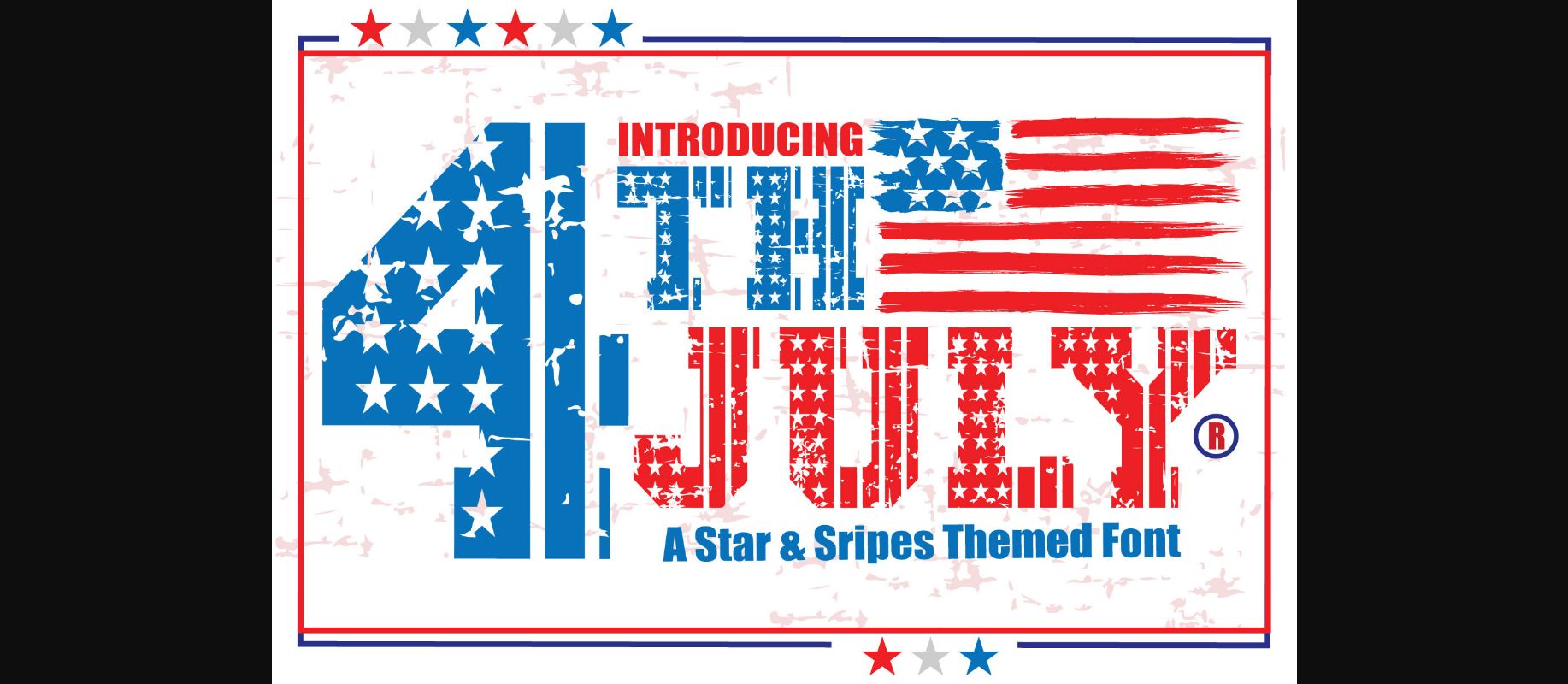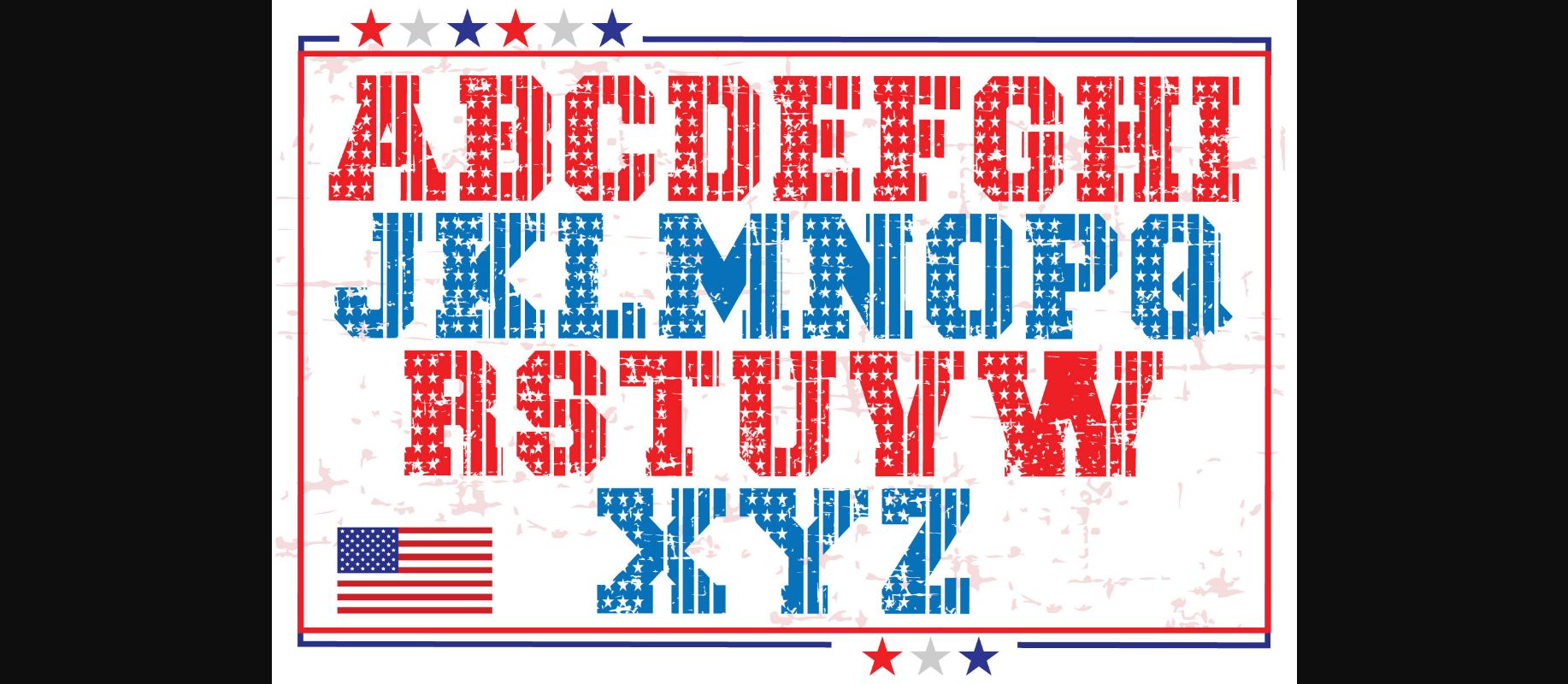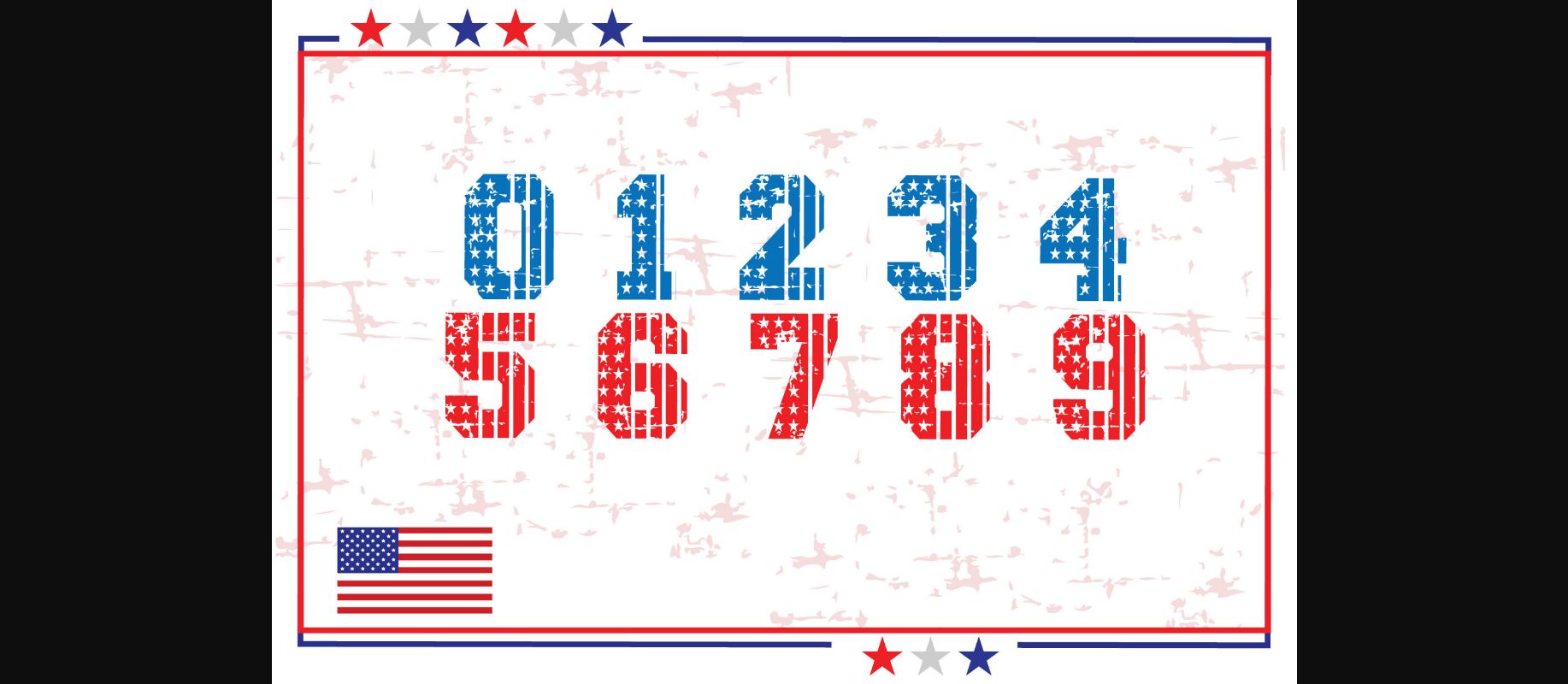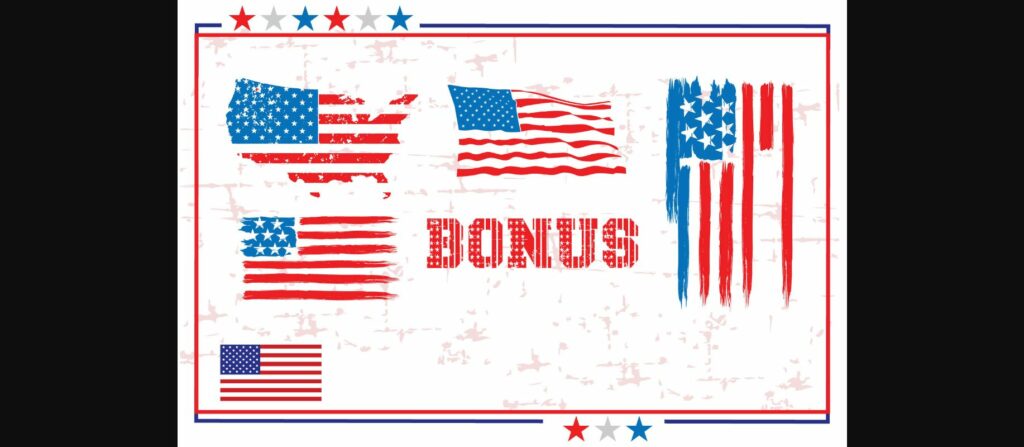
4th July Font
About 4th July Font
4th July is a bold, incredibly cool, and festive decorative font. It can be used for various design ideas related to celebrations and joyful events. Have fun with this beautiful font and explore its endless variations.